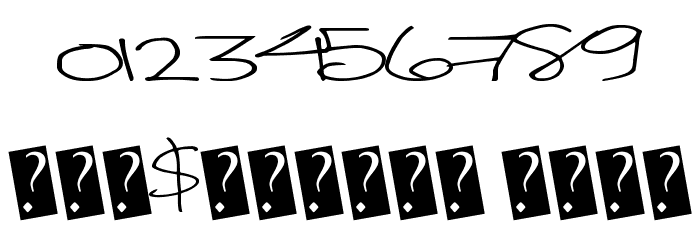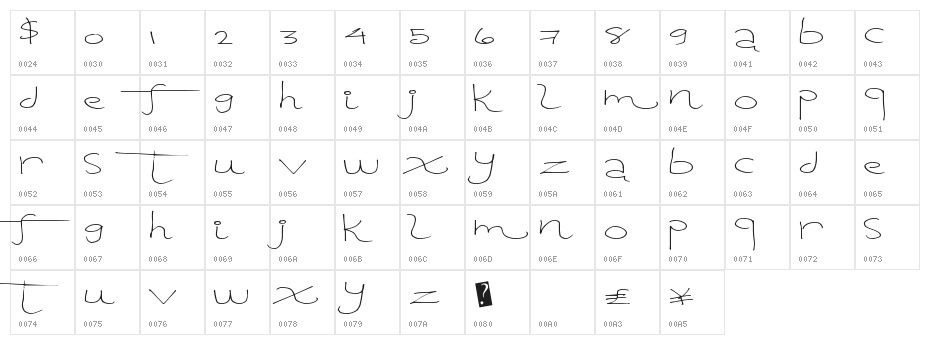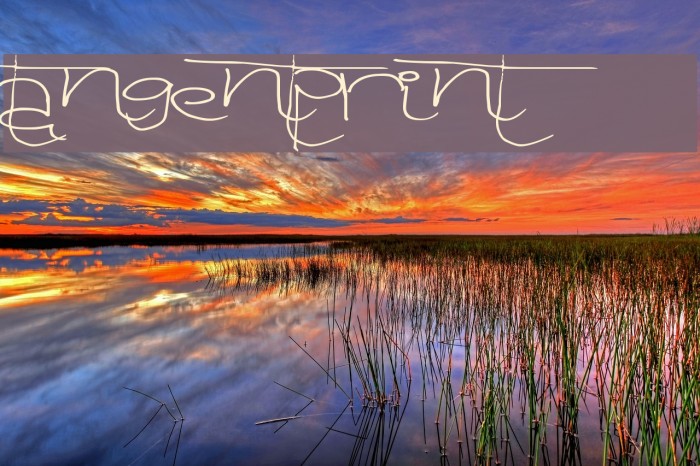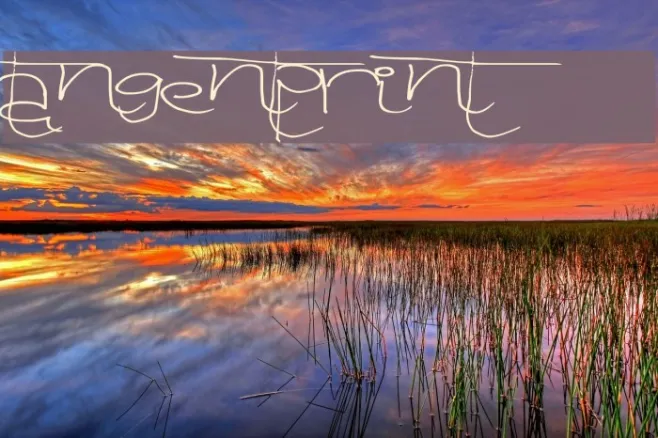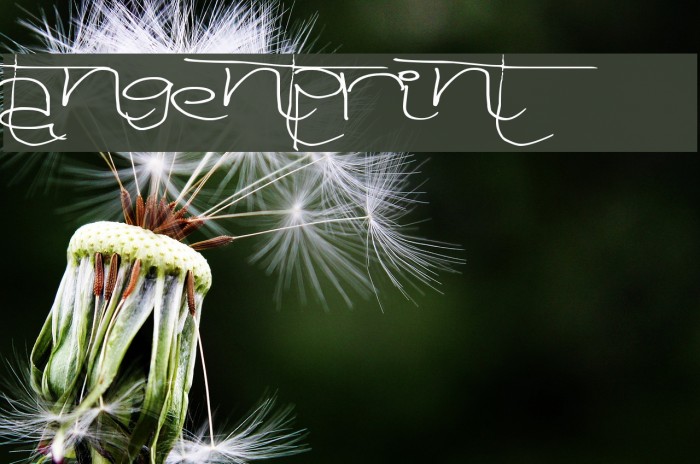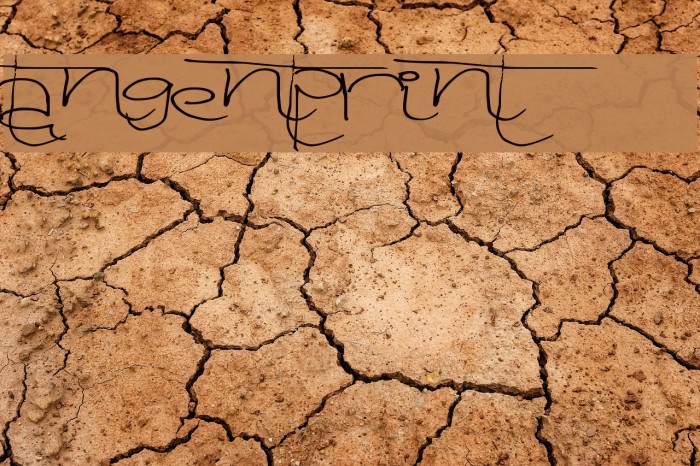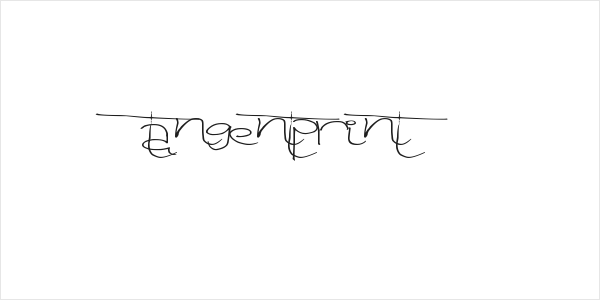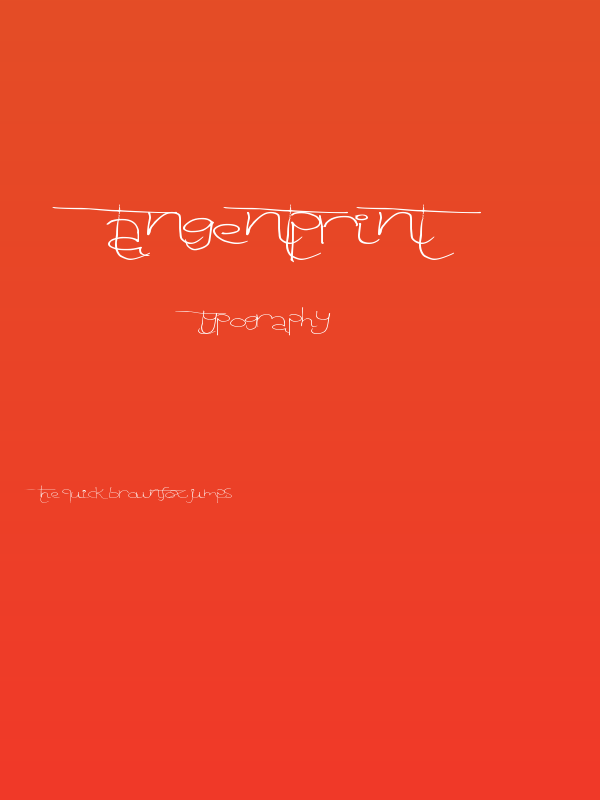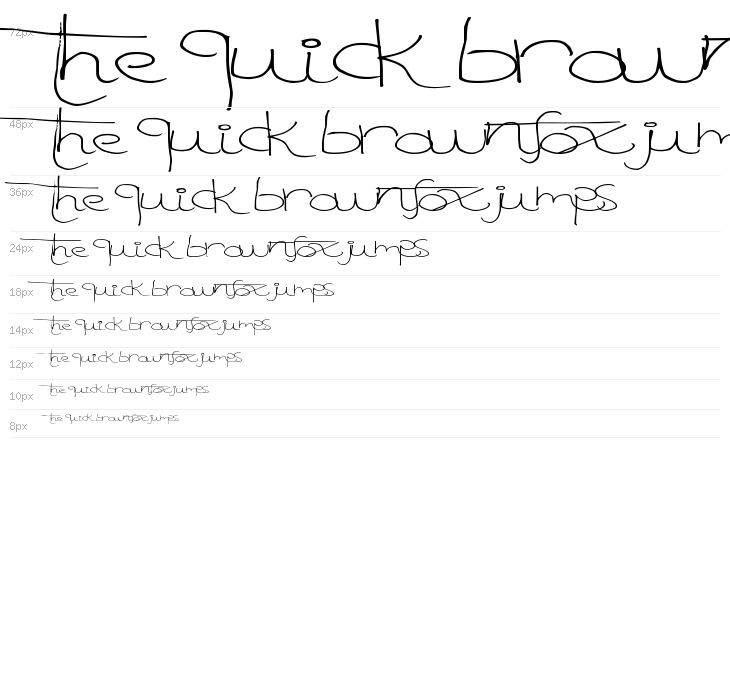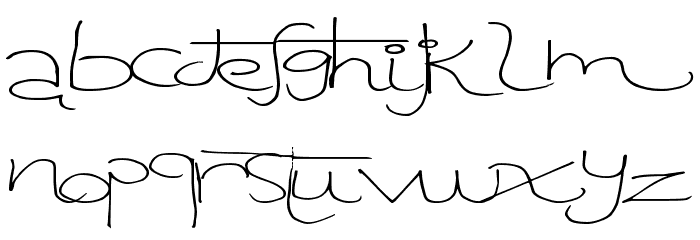
TangentPrint Font
TangentPrint Description
This font features a unique and artistic script style with elongated, flowing lines and a whimsical touch. The characters are interconnected with a continuous stroke, giving it a handwritten appearance. The uppercase and lowercase letters maintain a consistent style, with some letters featuring loops and swirls that add to its decorative nature. The numbers and special characters are designed to match the overall aesthetic, with a playful yet elegant flair. This font is ideal for creative projects that require a personal and artistic touch.
| Proposed Projects | Ideal for wedding invitations, greeting cards, artistic posters, and branding materials that require a personal touch. |